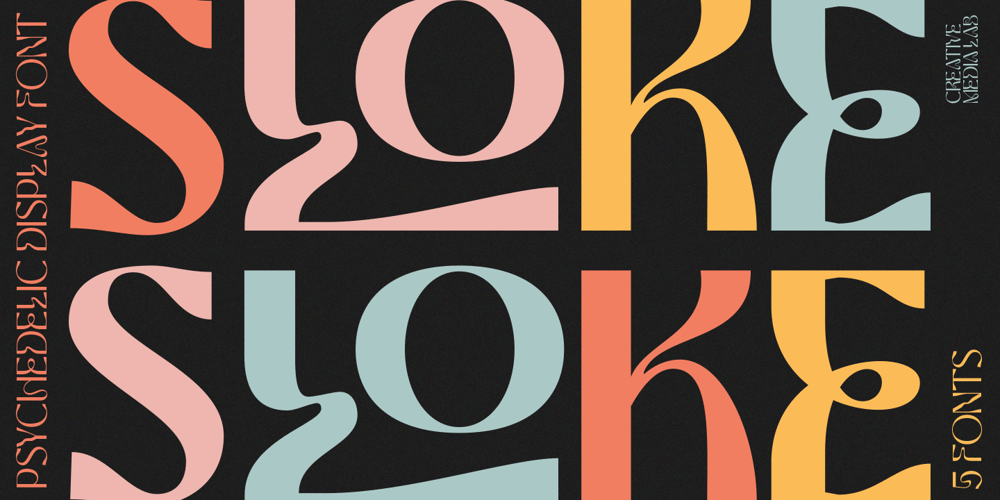
Sloke
Sloke font
Sloke Font Family was designed by Kadek Mahardika and published by Creativemedialab. Sloke contains 5 styles and family package options. Introducing Sloke, our new psychedelic-style font. All capital alphabet with a psychedelic style. Consist of 5 weights and tons of ligatures. Sloke will add some fun vibes to your designs. This font is perfect for t-shirt design, book covers, titles and many more.